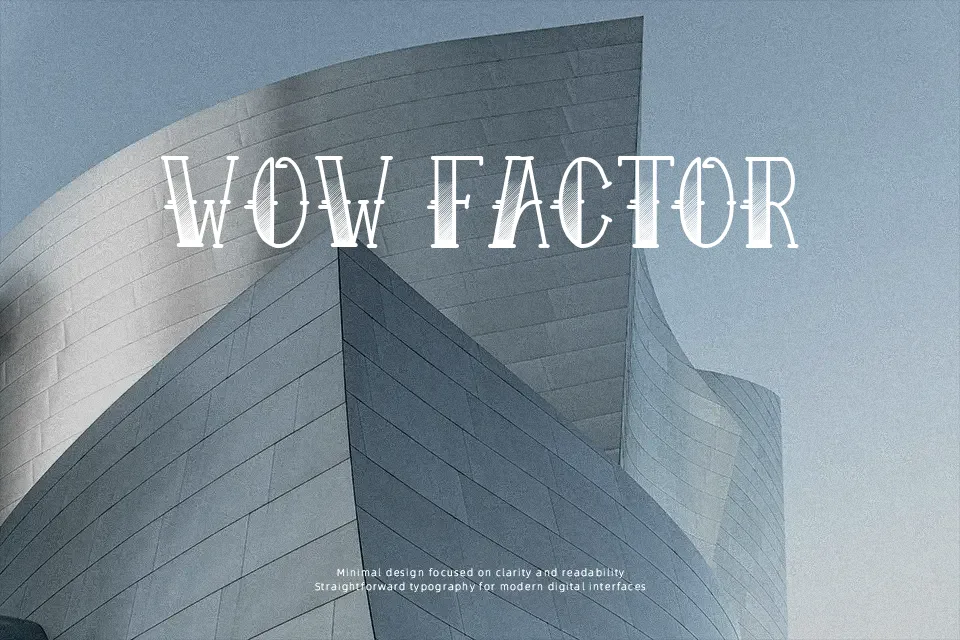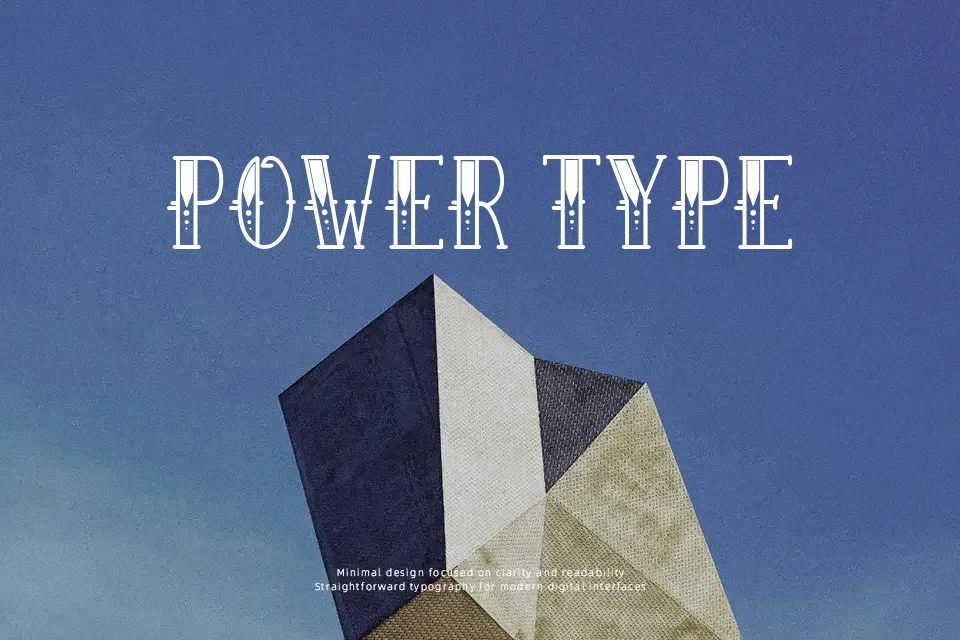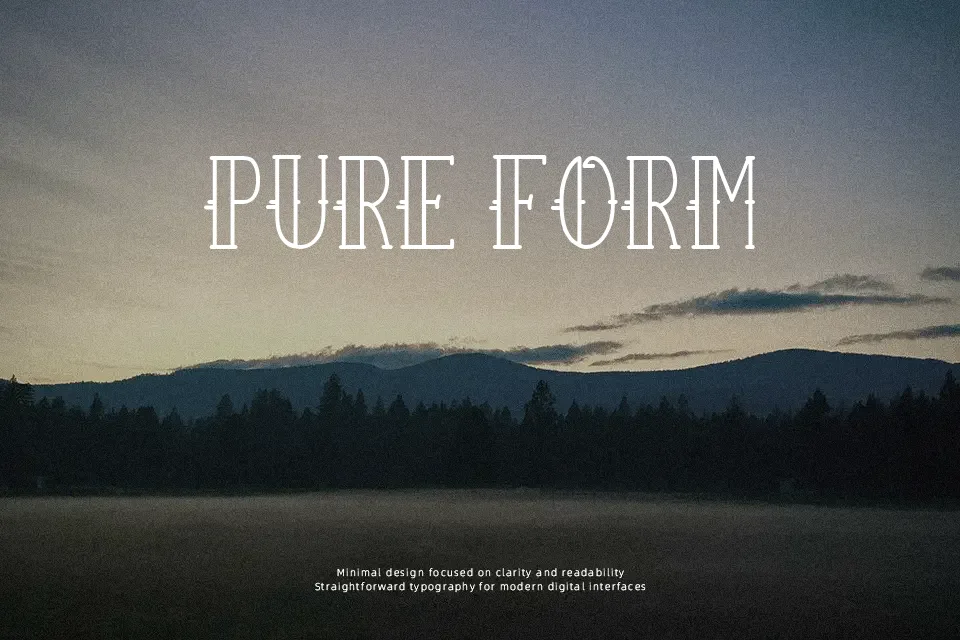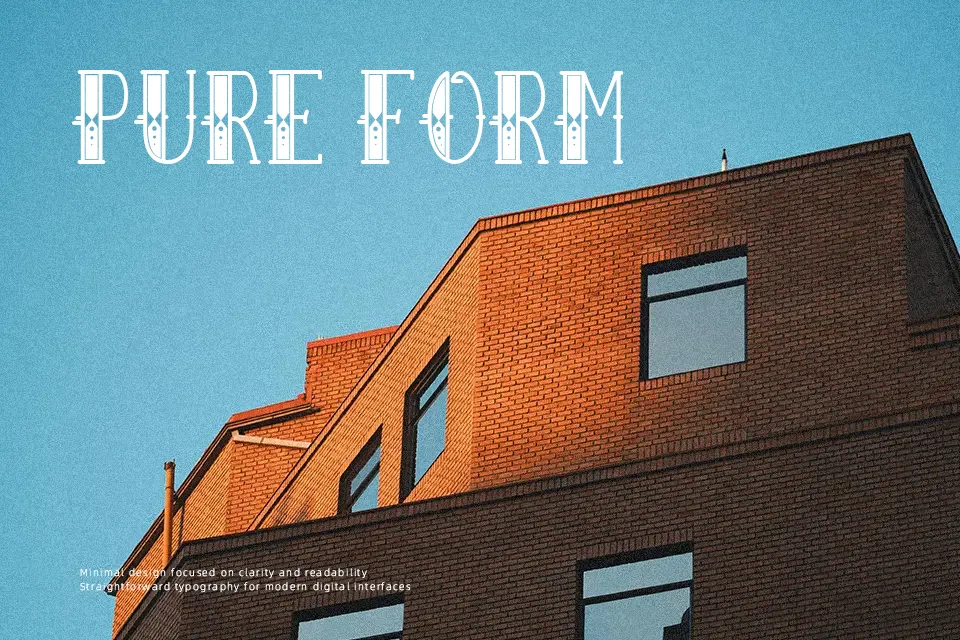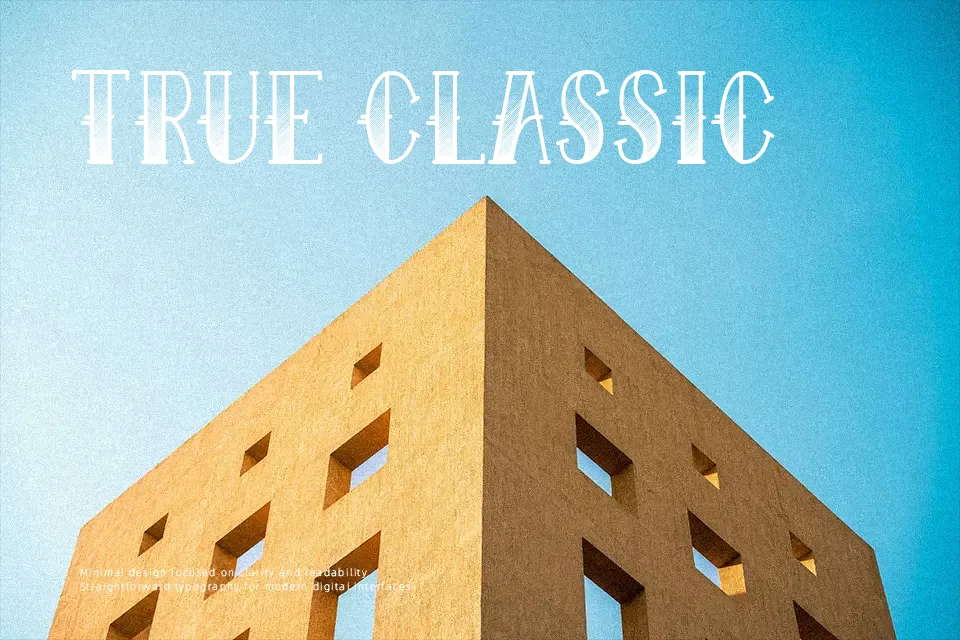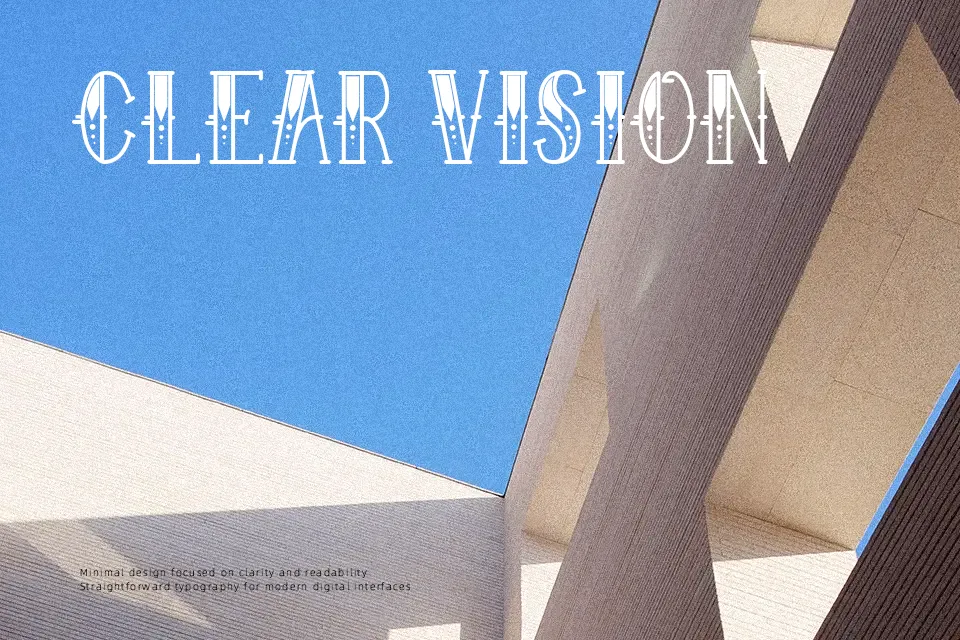
Sailor Larry Font
The Sailor Larry Font features a structured, vintage-inspired architecture defined by bold strokes and classic decorative elements. Its letterforms display balanced proportions and open spacing, capturing the authentic aesthetic of traditional nautical typography. The sturdy character structure ensures a commanding presence without feeling overly heavy. This typeface performs exceptionally well in large display settings, such as vintage product packaging, apparel graphics, and retro-themed branding. However, the decorative details become less effective at smaller sizes, significantly reducing continuous reading comfort. The open spacing helps maintain clarity in larger headlines, making it highly effective for striking visual impact, though it remains unsuitable for long paragraphs or dense editorial layouts where maximum readability is essential.
Best For: vintage product packaging, apparel graphics, tattoo studio branding, nautical event posters
Not Ideal For: long paragraph text, dense editorial layouts, small interface labels
Perfect for branding, packaging, and poster, with a bold and decorative style.